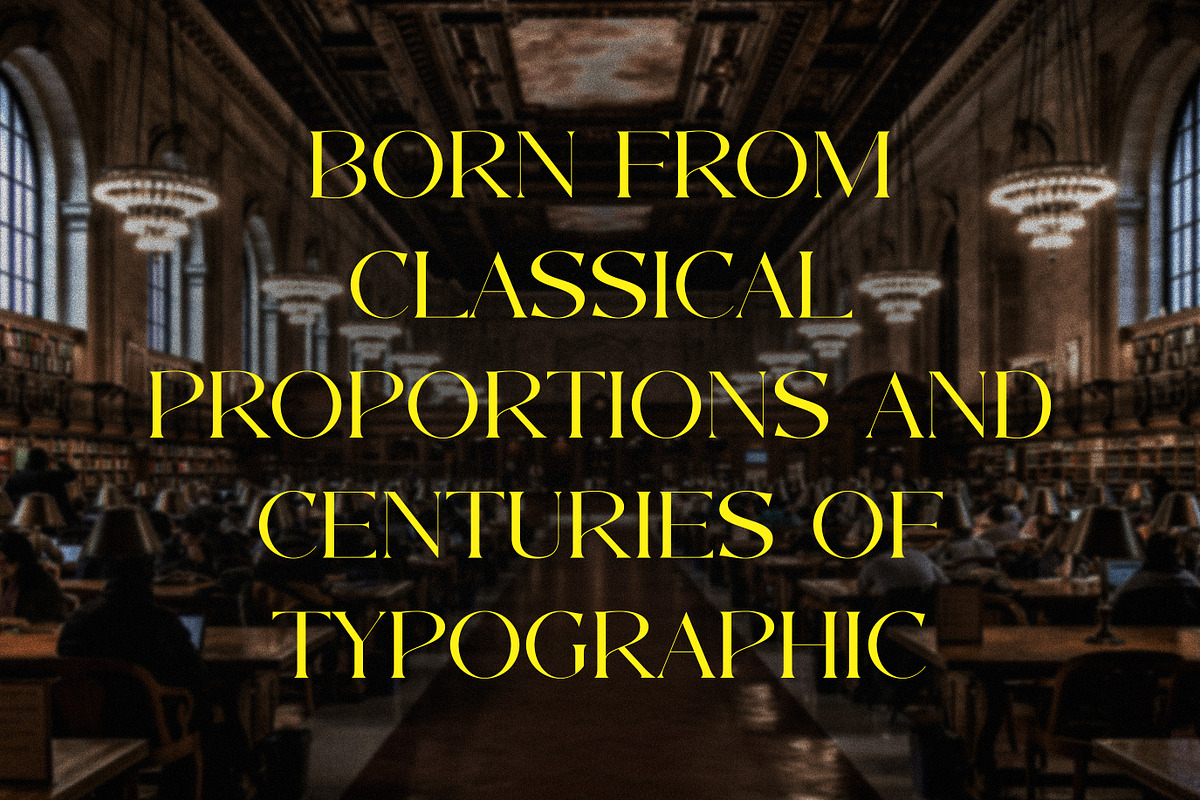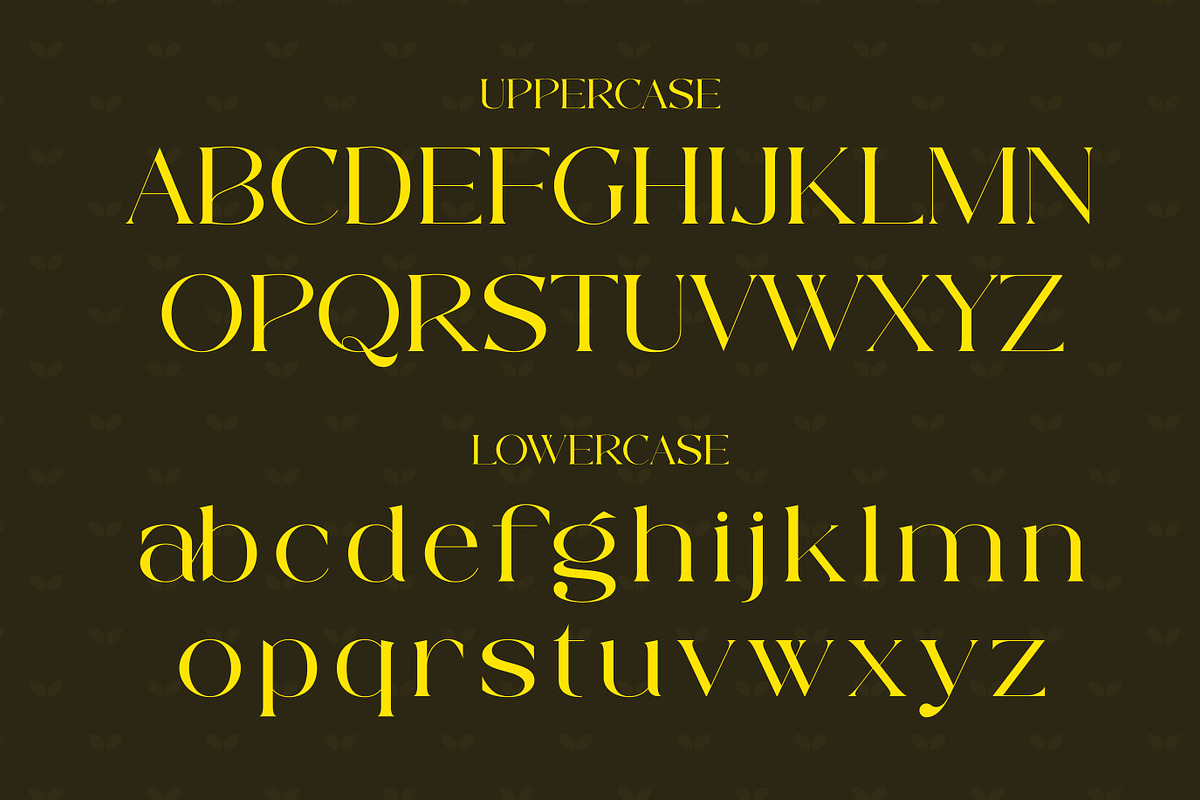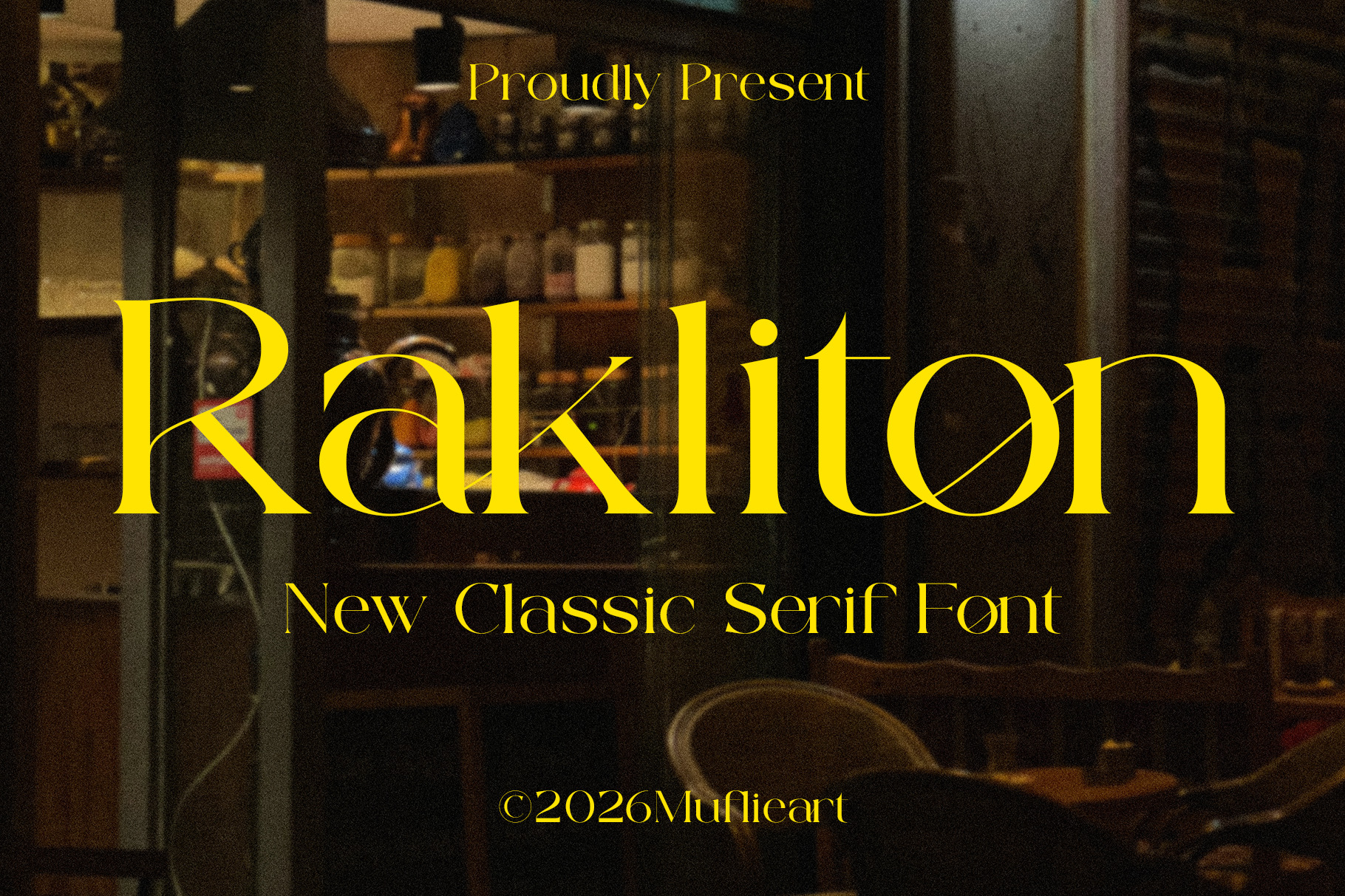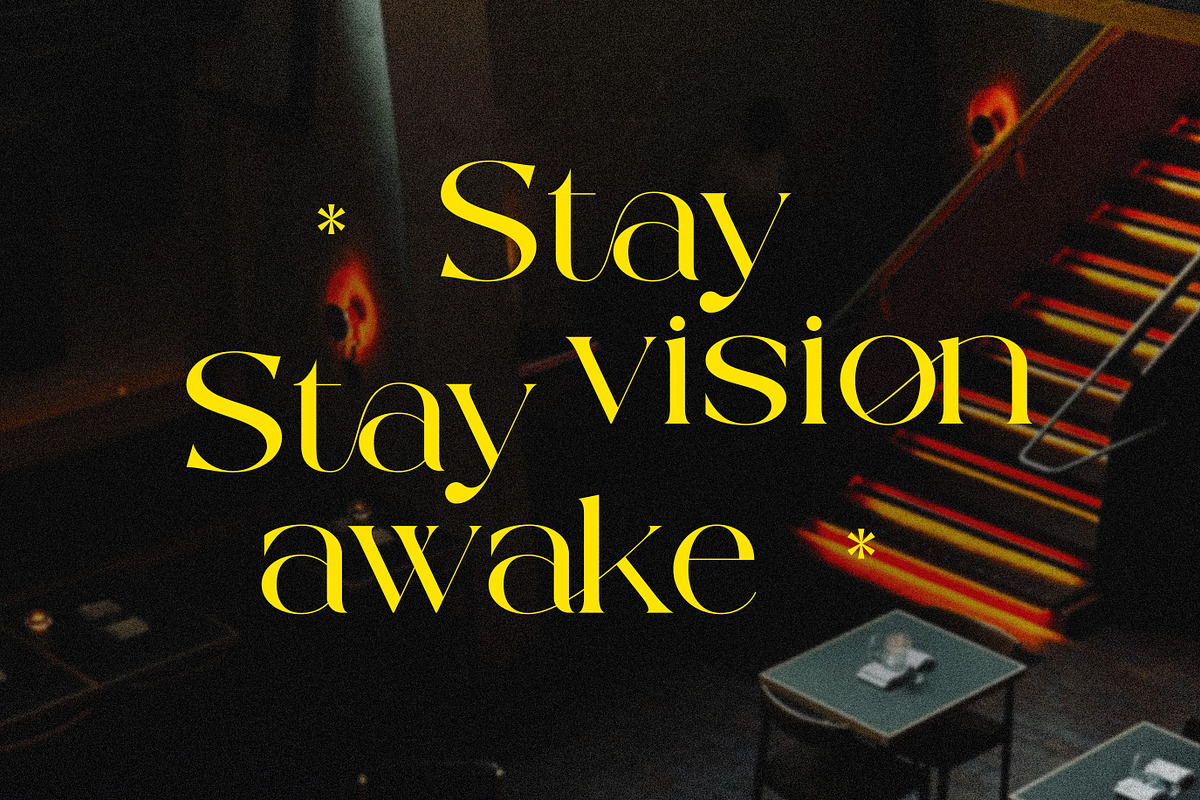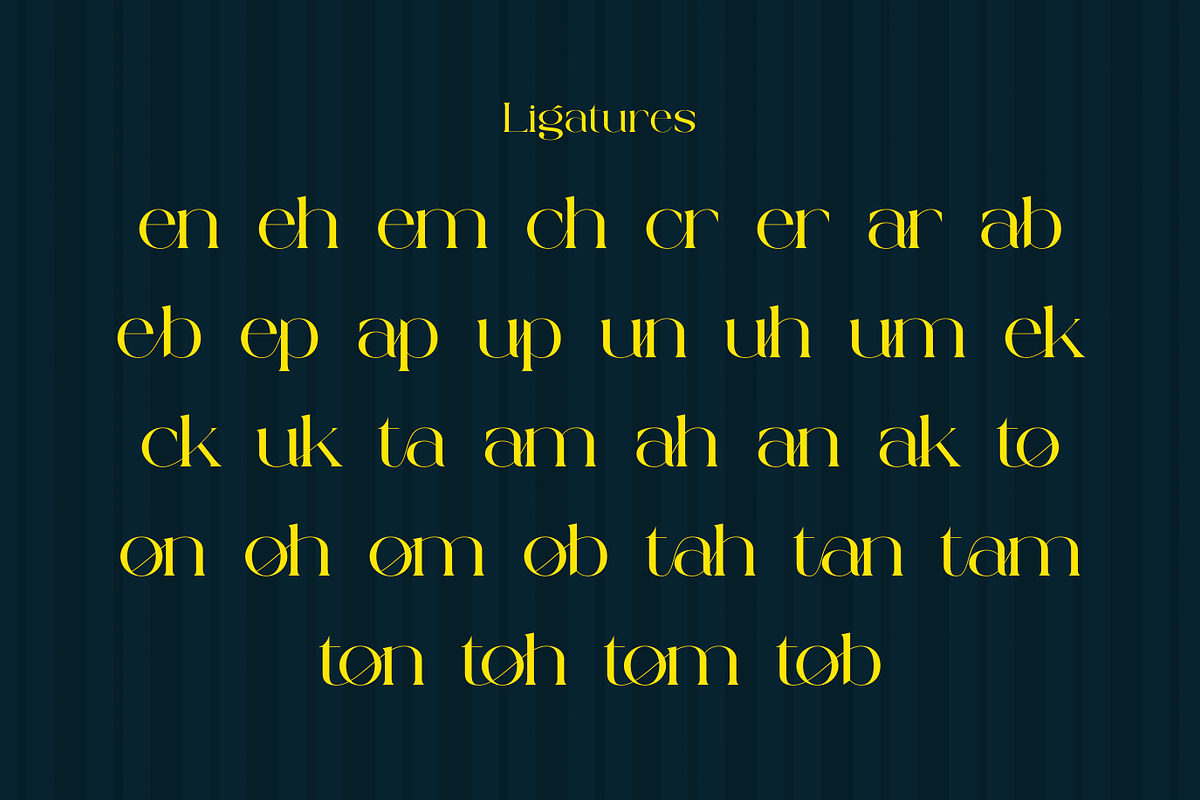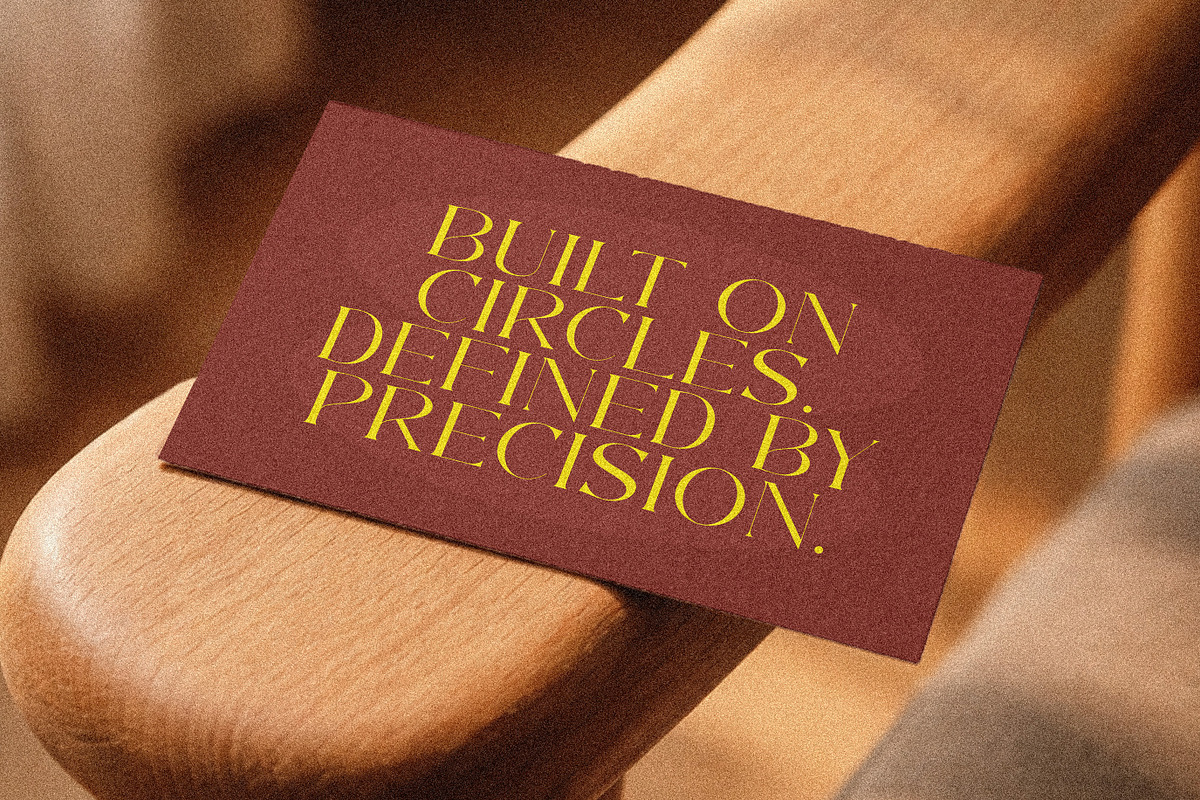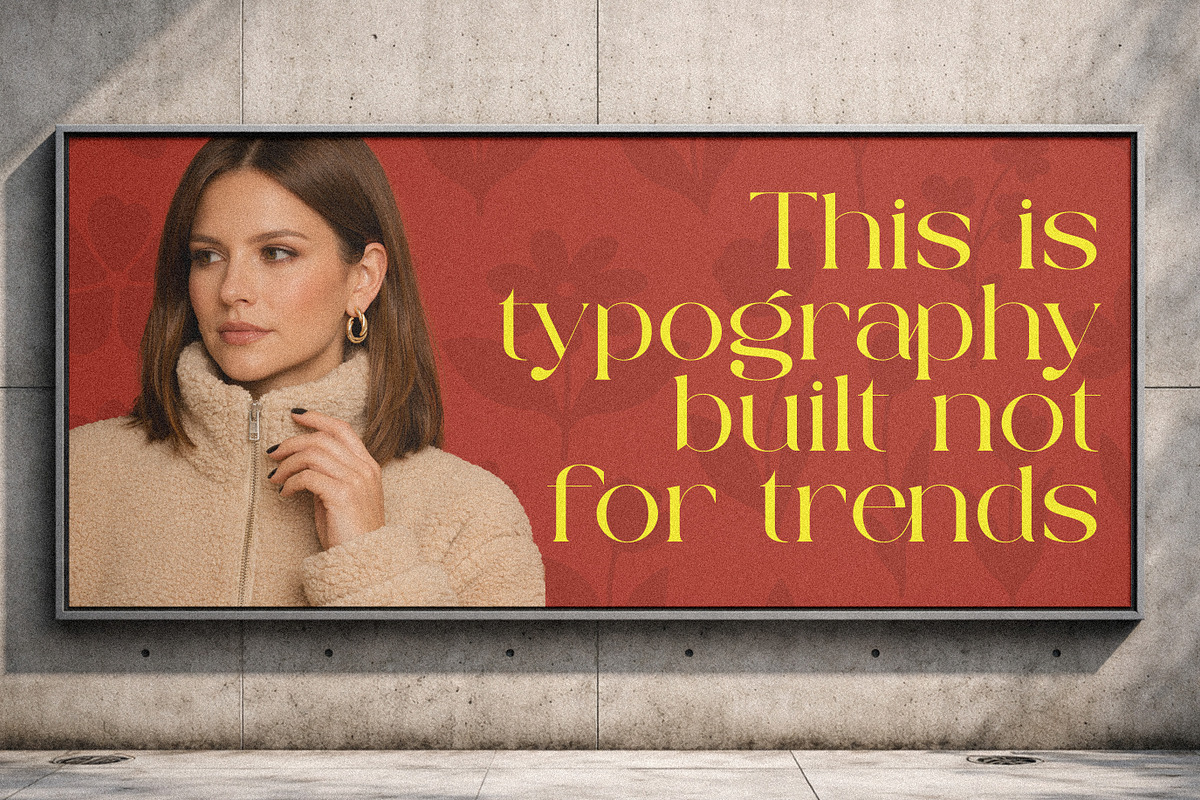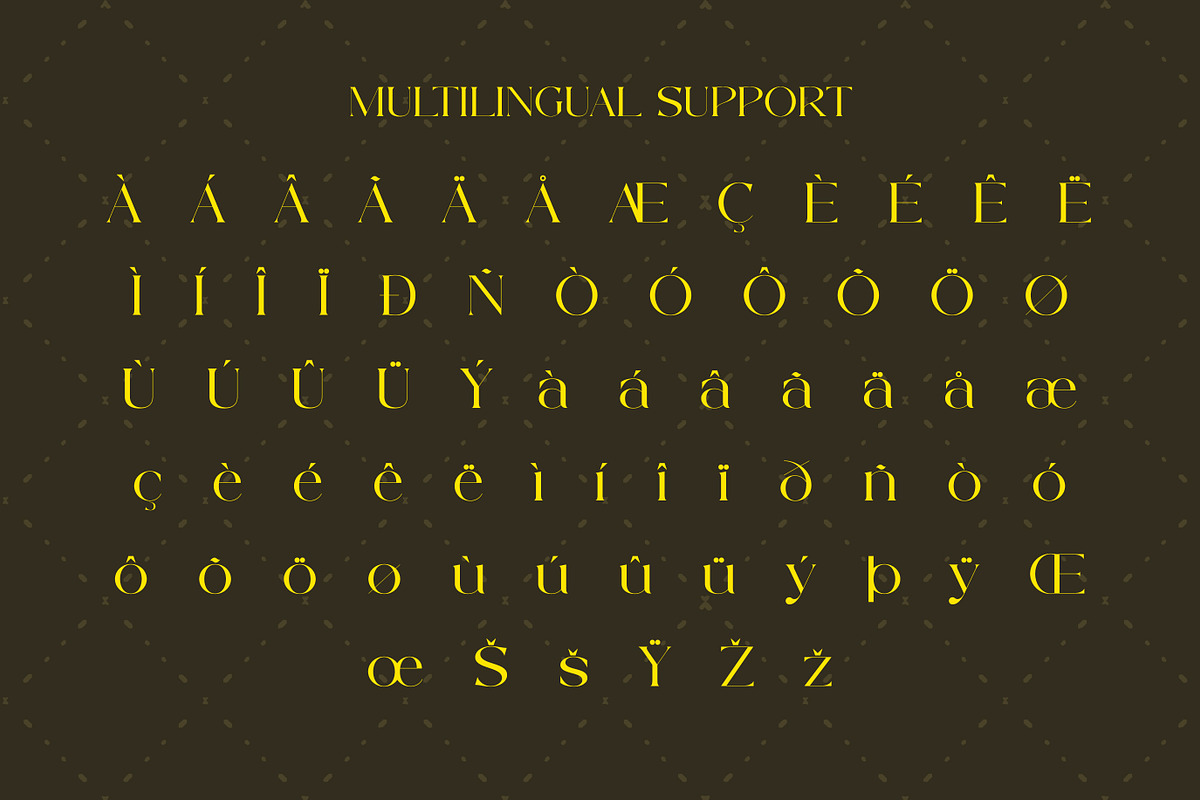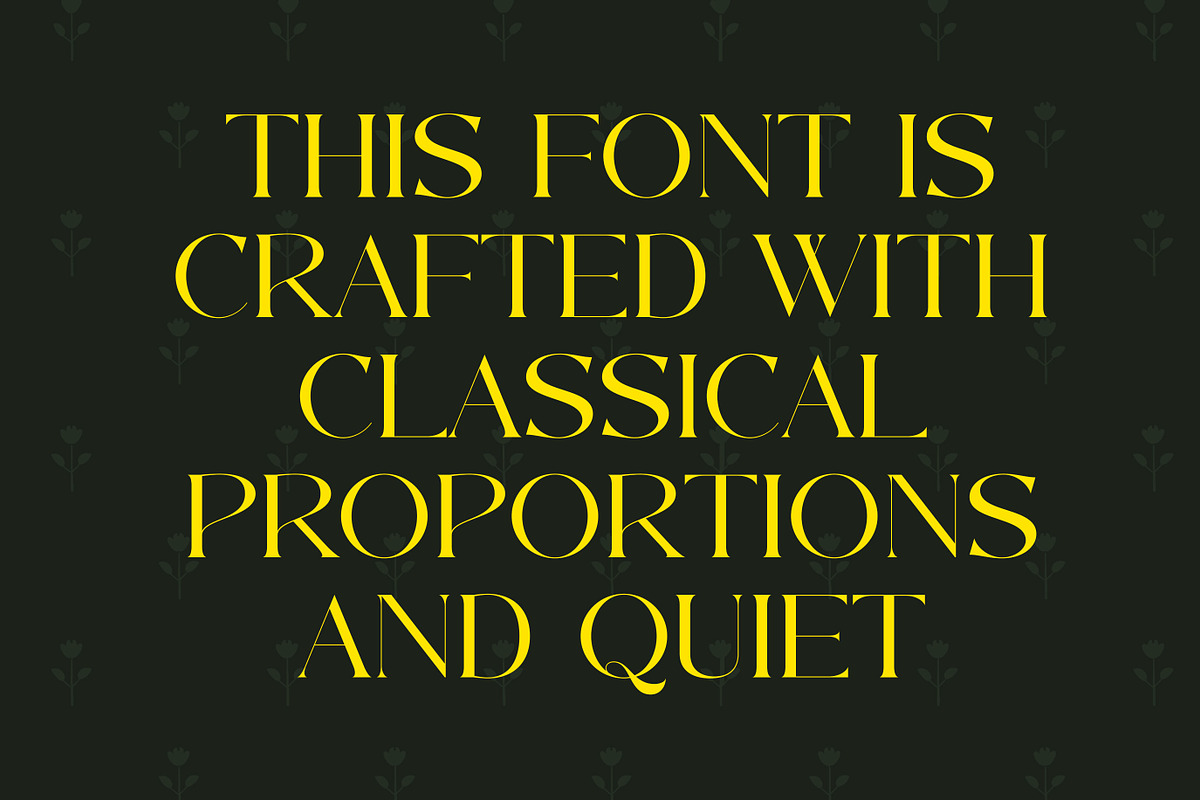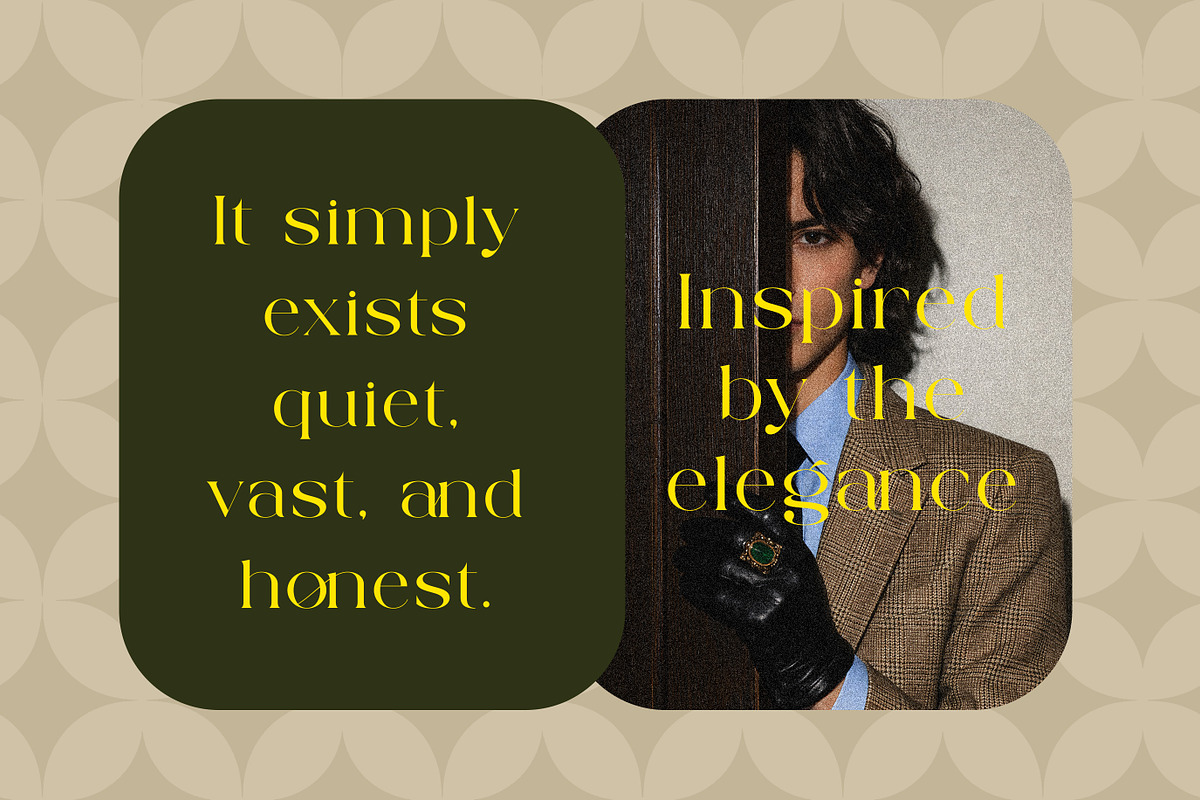
Rakliton - Classic Serif Font
Introducing Rakliton the elegant, beautiful, and modern Serif. With its modern and minimalist look, Rakliton brings a luxurious, classy, and clean style to your projects such as websites, modern logos, brand identities, social media quotes, wedding stationery, magazines, and more!
Rakliton features unique and classy capital letters A to Z and also comes with unique ligatures making Rakliton a beautiful font that can be customized for various projects and jobs you want.
Rakliton is perfect for: logos, brands, wedding invitations, business cards, greeting cards, posters, magazines, social media, agenda prints, and websites.
Uppercase and lowercase letters
Multilingual Characters
ligatures